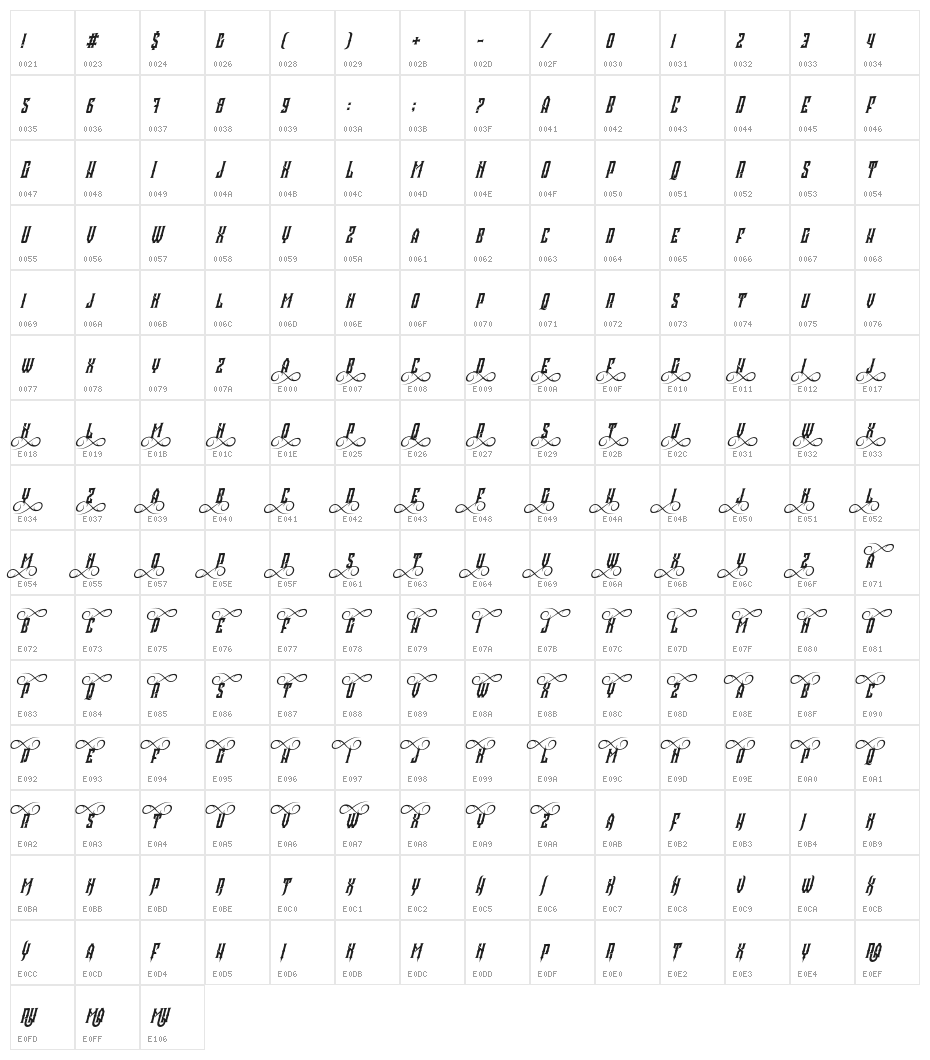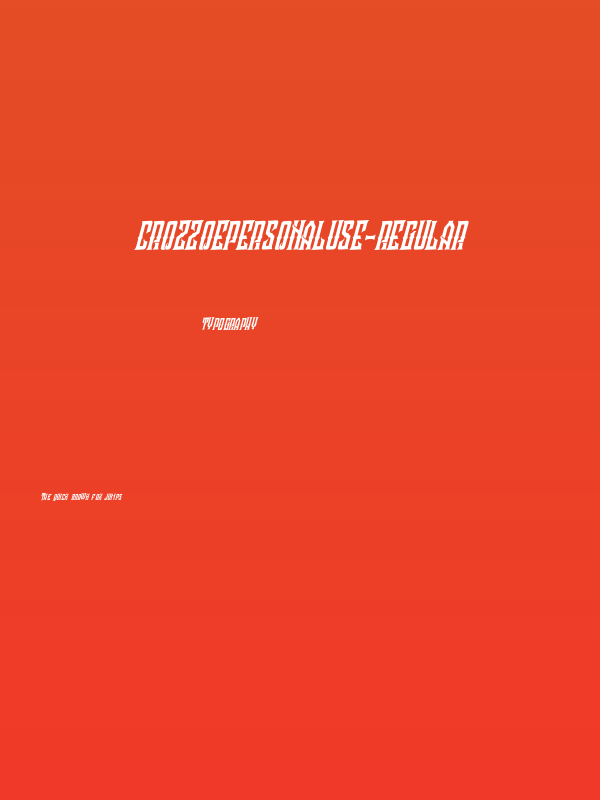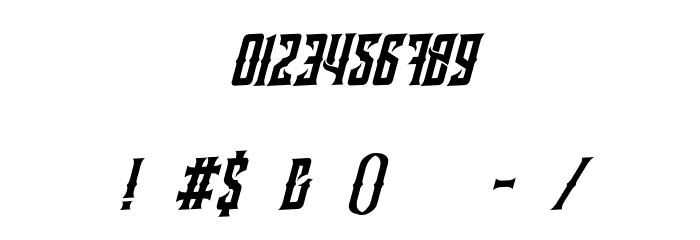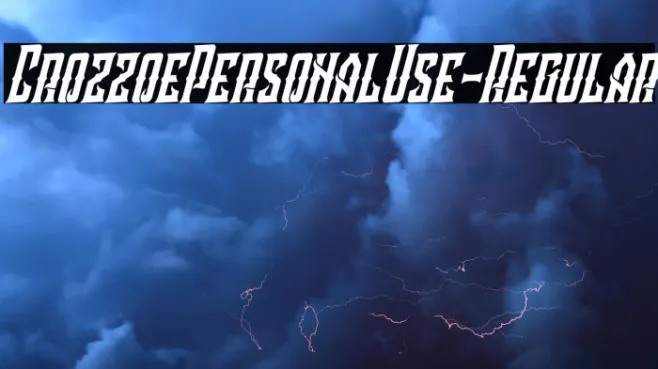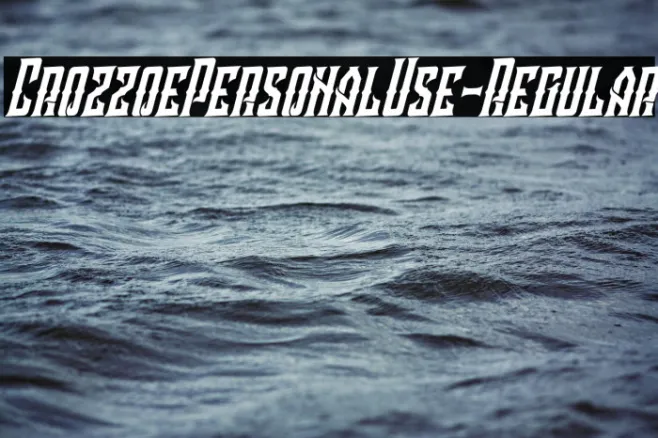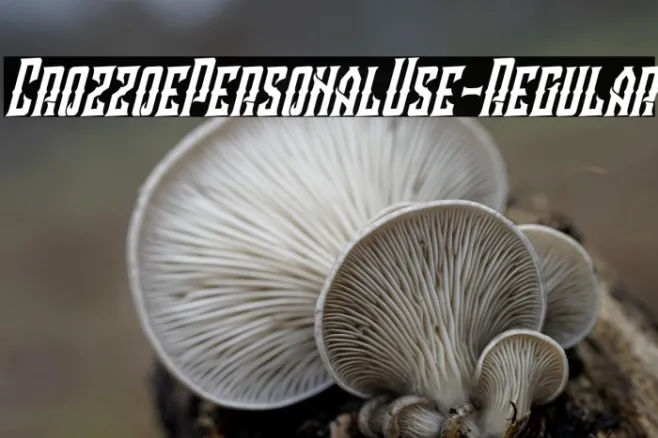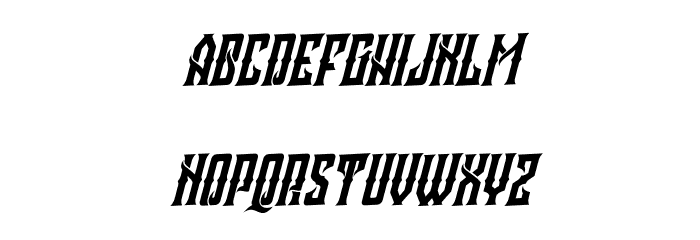
CrozzoePersonalUse-Regular Font
CrozzoePersonalUse-Regular Description
This font features a bold and dynamic style with sharp, angular lines and a distinct slant, giving it a sense of motion and energy. The characters are tightly spaced, enhancing its compact and impactful appearance. The uppercase and lowercase letters maintain a consistent design, with exaggerated serifs and pointed edges that contribute to its aggressive and modern look. The numbers and special characters follow the same aesthetic, ensuring uniformity across all glyphs. This font is ideal for projects that require a strong visual presence and a contemporary edge.